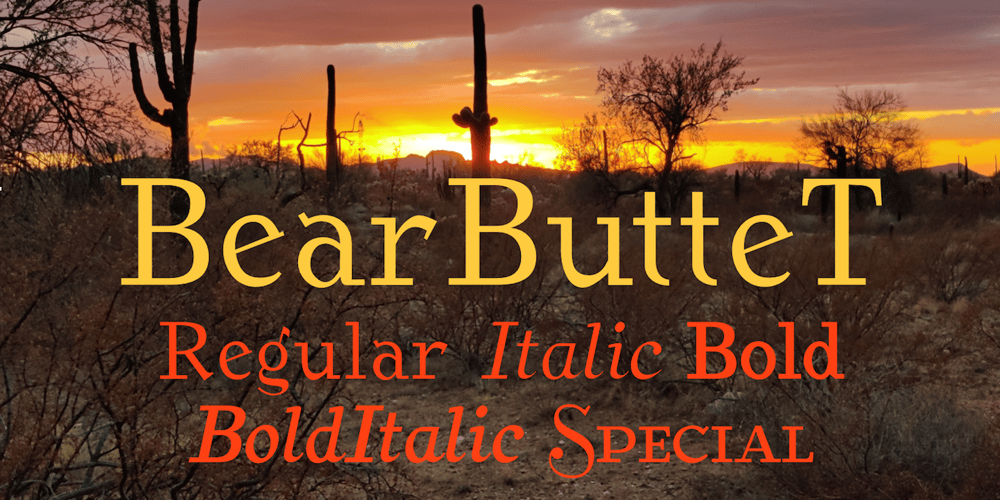
BearButte Font Family was designed by Robert Schenk and published by Ingrimayne Type. BearButte contains 5 styles and family package options. BearButteT is a square-serifed typeface. The bold version was developed first as a display typeface, and the rest of the family followed. A fifth member of the family includes swash caps on the upper-case keys and small caps on the lower-case keys.